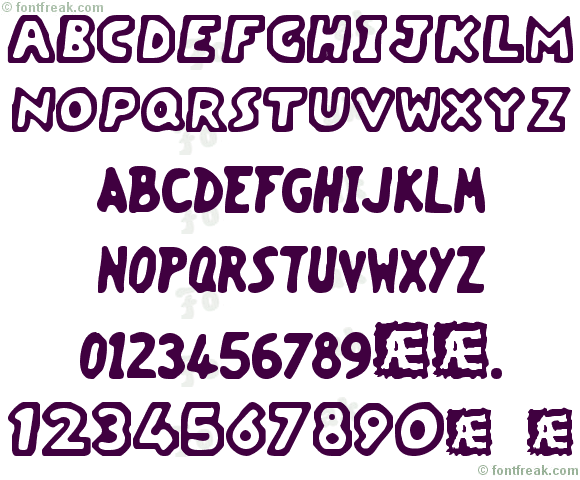
Vacant Capz BRK
About Vacant Capz
Vacant Capz by Ænigma Fonts is a striking display font that captivates with its unique blend of modern aesthetics and playful charm. As a sans-serif typeface, it features clean lines and a contemporary feel, making it an excellent choice for various design projects. The font showcases a balanced stroke weight with a subtle contrast, ensuring legibility while maintaining a distinctive personality. The letters are well-spaced, allowing for easy reading and a harmonious flow that elevates any text.
Visually, Vacant Capz incorporates rounded edges and geometric shapes that lend a friendly yet professional vibe. The playful character of the font is enhanced by its slightly quirky design elements, making it suitable for both informal and formal applications. This versatility means it can shine in various use cases, such as vibrant restaurant menus that need to convey a warm ambiance, eye-catching movie posters that demand attention, engaging promotional materials for small businesses, and even stylish wedding invitations that reflect a modern aesthetic.
What truly sets Vacant Capz apart is its ability to blend playfulness with a professional appearance, allowing it to stand out in a crowded font landscape. Whether you're designing for print or digital media, this font offers a distinctive voice that can elevate your designs and captivate your audience.